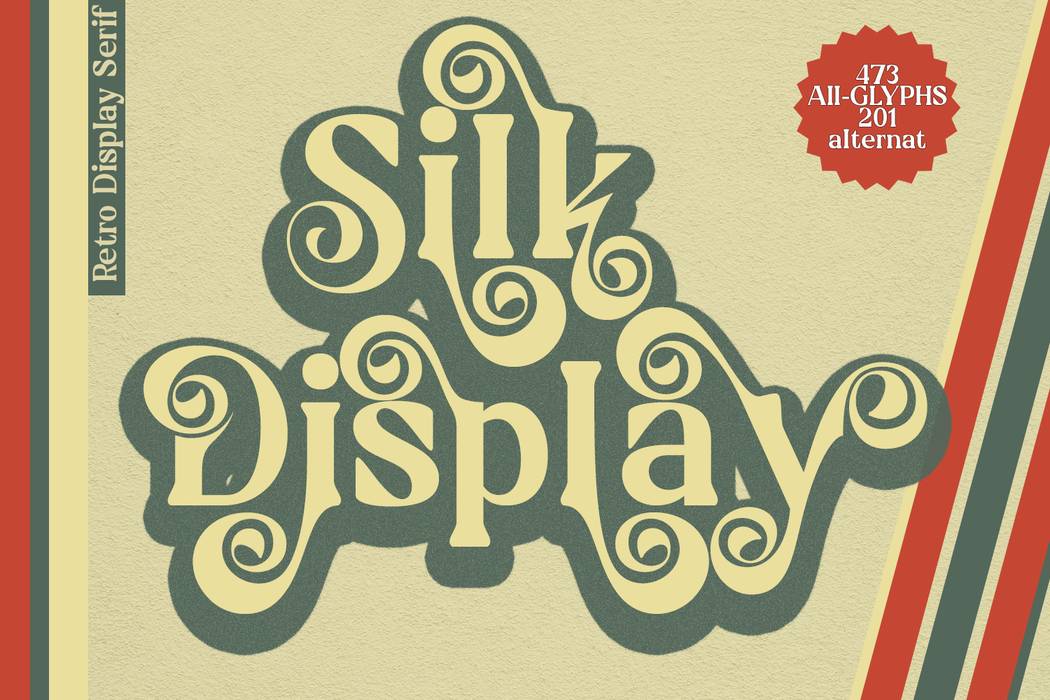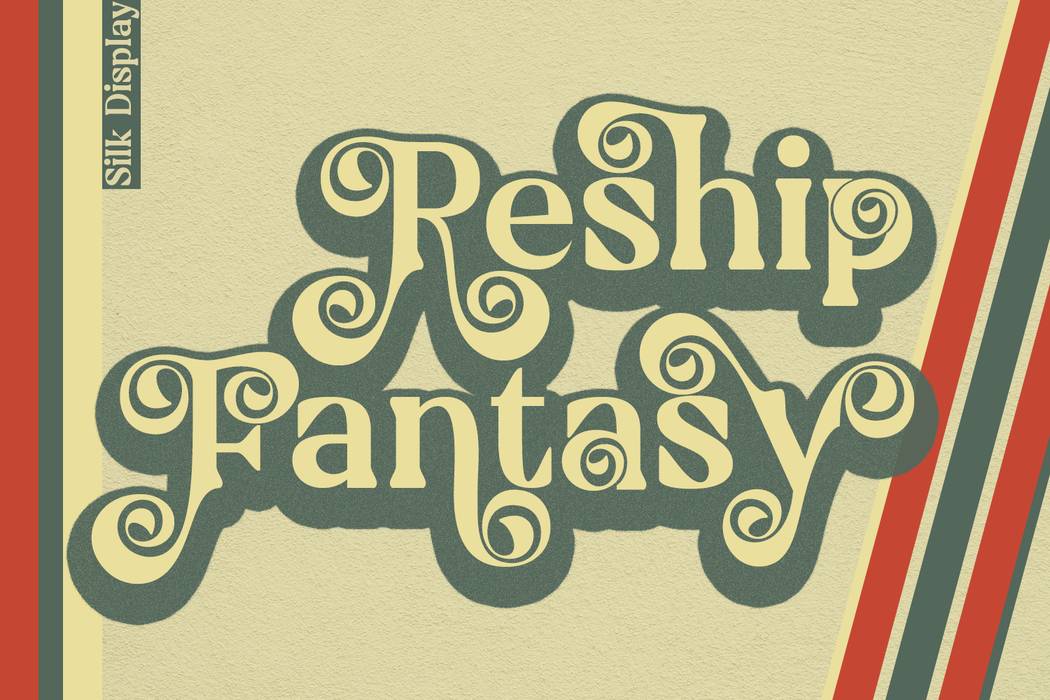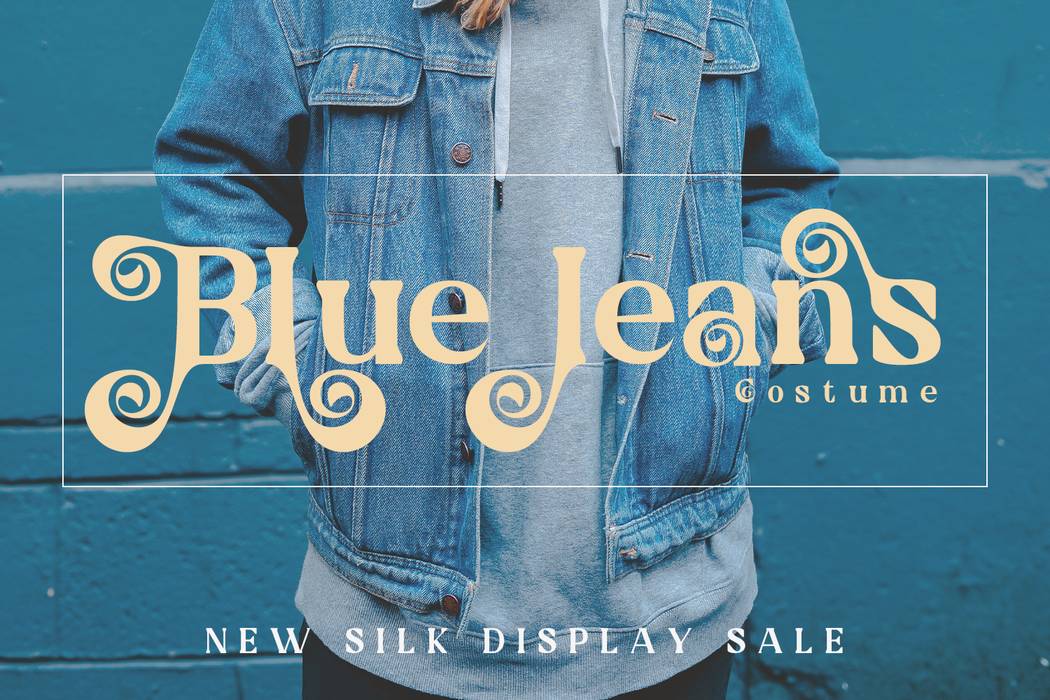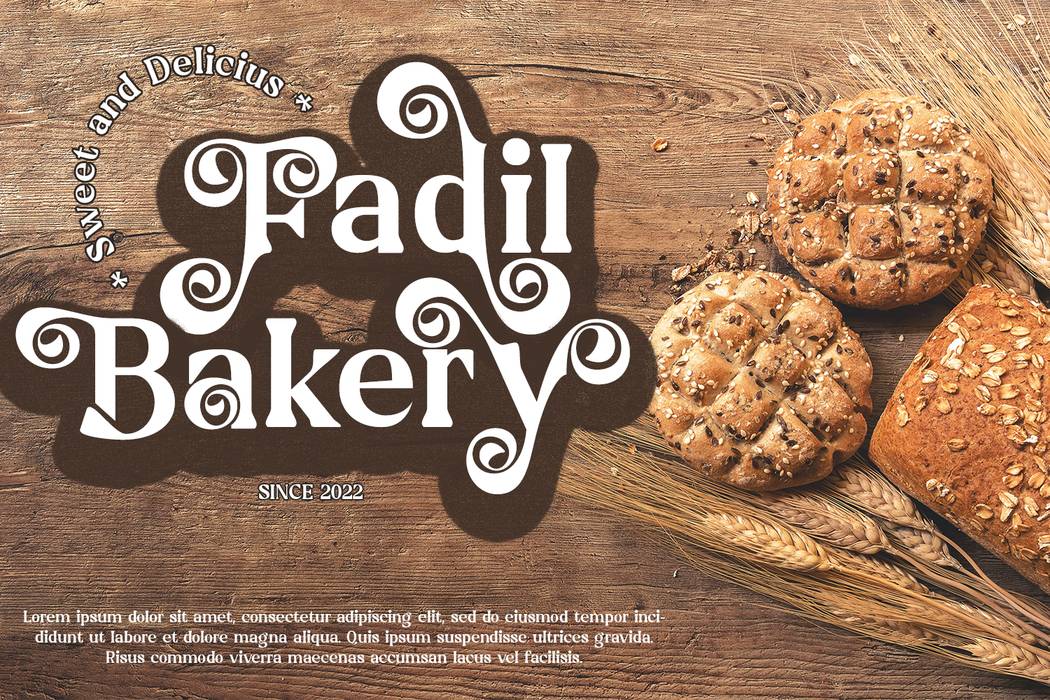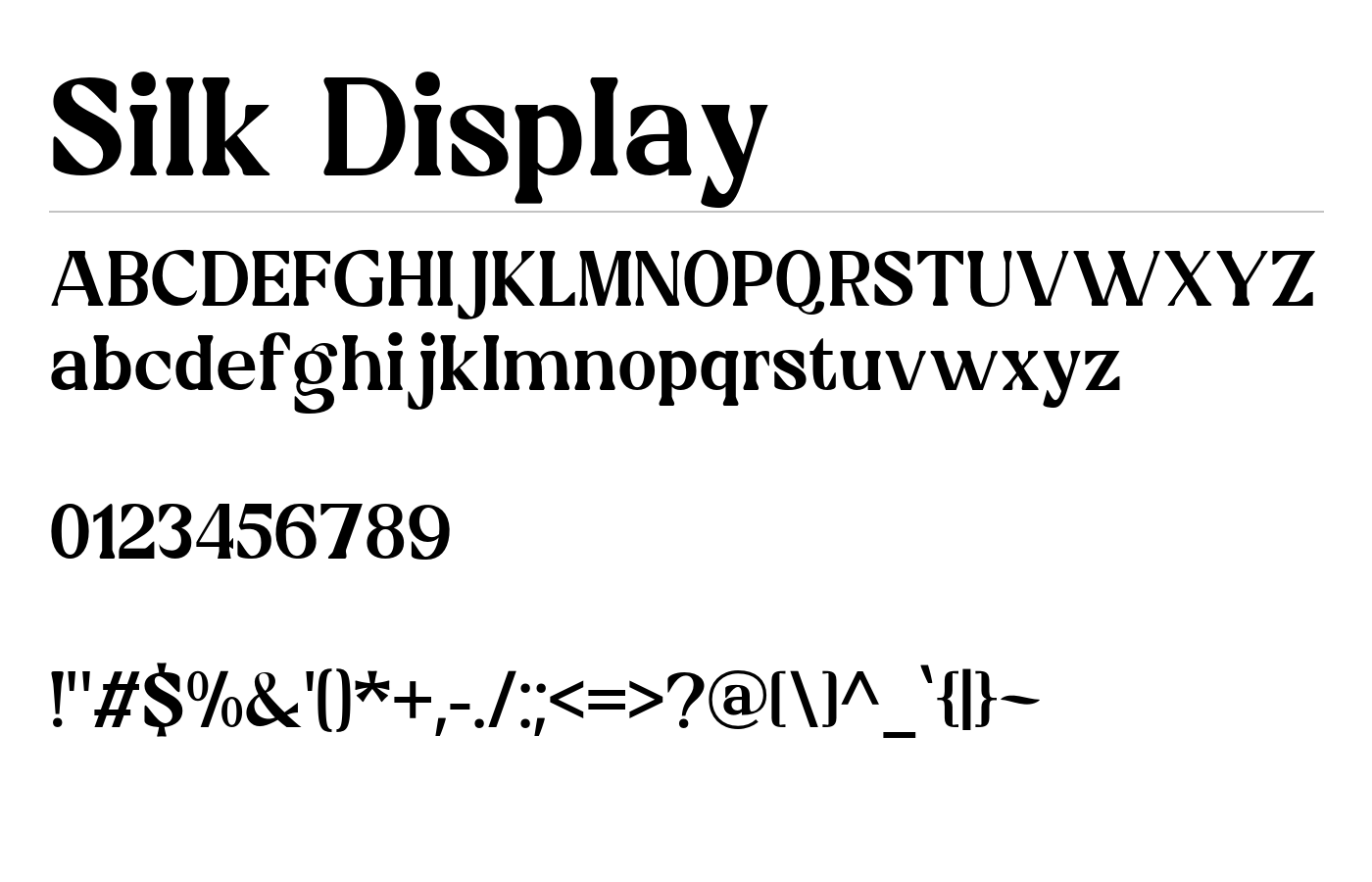
Silk Display is a refined serif font with a classic yet modern appeal, featuring elegant high contrast between thick and thin strokes and sharp, slightly bracketed serifs. Its balanced proportions and clear, legible letterforms make it ideal for sophisticated branding, editorial headlines, and stylish packaging where a touch of luxury and timelessness is desired. This font works beautifully in settings that need a bold, elegant statement without sacrificing readability.
Silk Display Font
About Silk Display Font
| Font family | Silk Display Font |
| Release date | 2022-07-06 |
| Designer | Arif Fadilah |